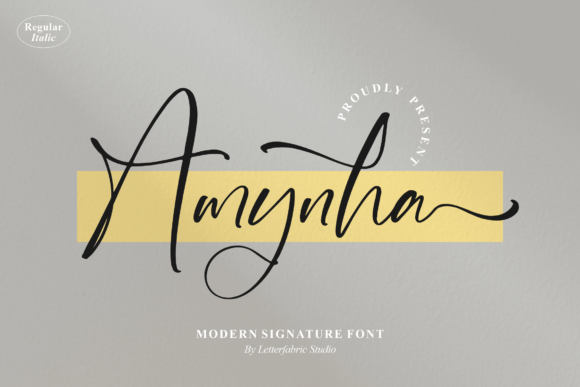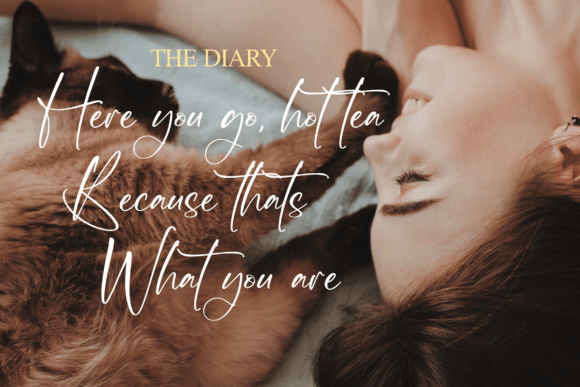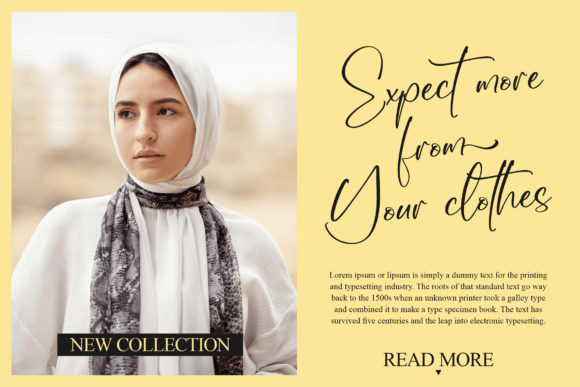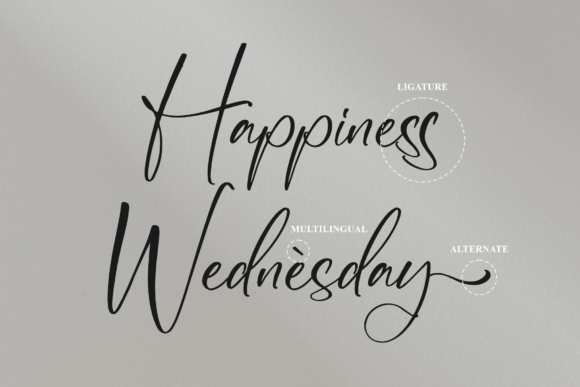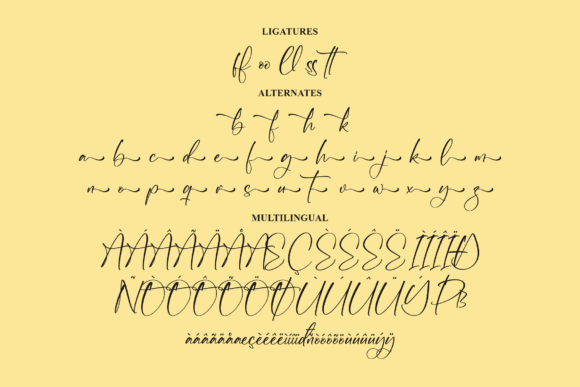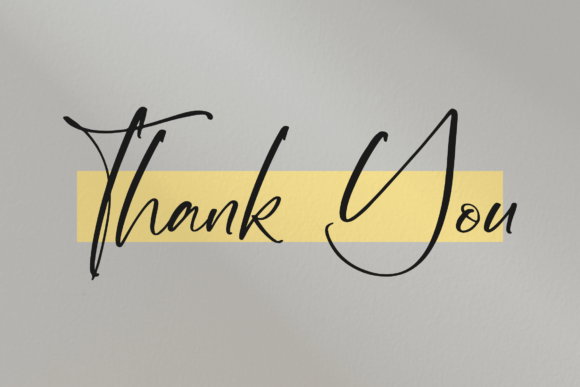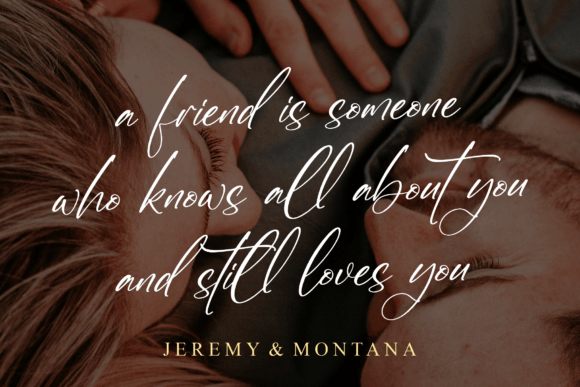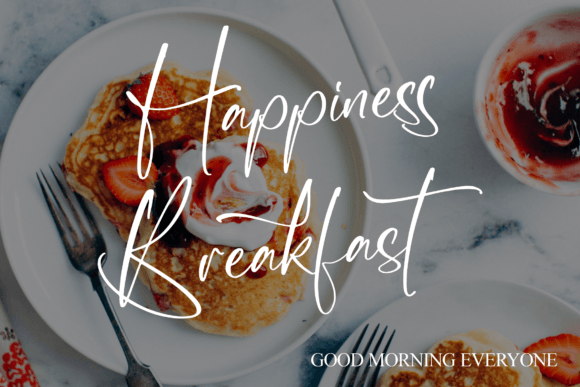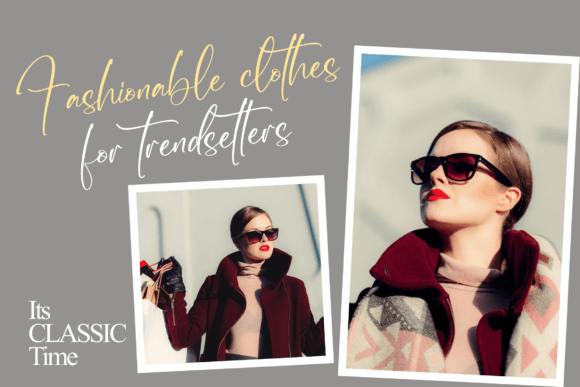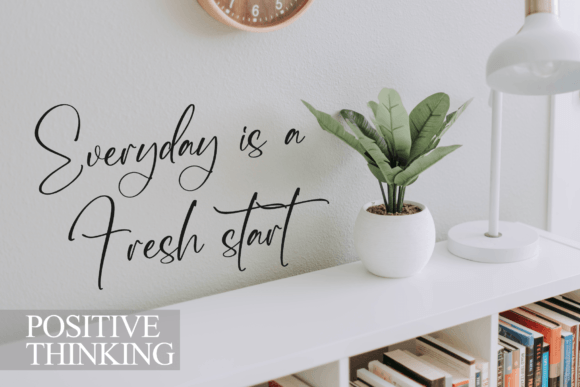
Amynha Font
About Amynha Font
Amynha – Modern Signature Font suitable for any projects such as logos, branding projects, homeware designs, product packaging, mugs, quotes, posters, shopping bags, t-shirts, book covers, name cards, invitation cards, greeting cards, labels, photography, watermark, special events, and all your other lovely projects that need a beautiful script taste.